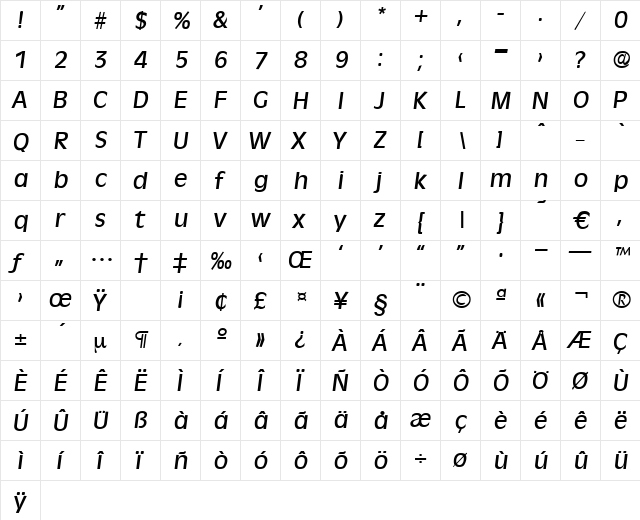
Ravenna-MediumIta Regular Font Preview
Ravenna-MediumIta Regular
Ravenna-MediumIta Regular Font Details
Design Context for Ravenna-MediumIta Typeface
Ravenna-MediumIta offers clean, dependable letterforms without strong stylistic allegiance, making it a practical choice for designers who need flexibility.